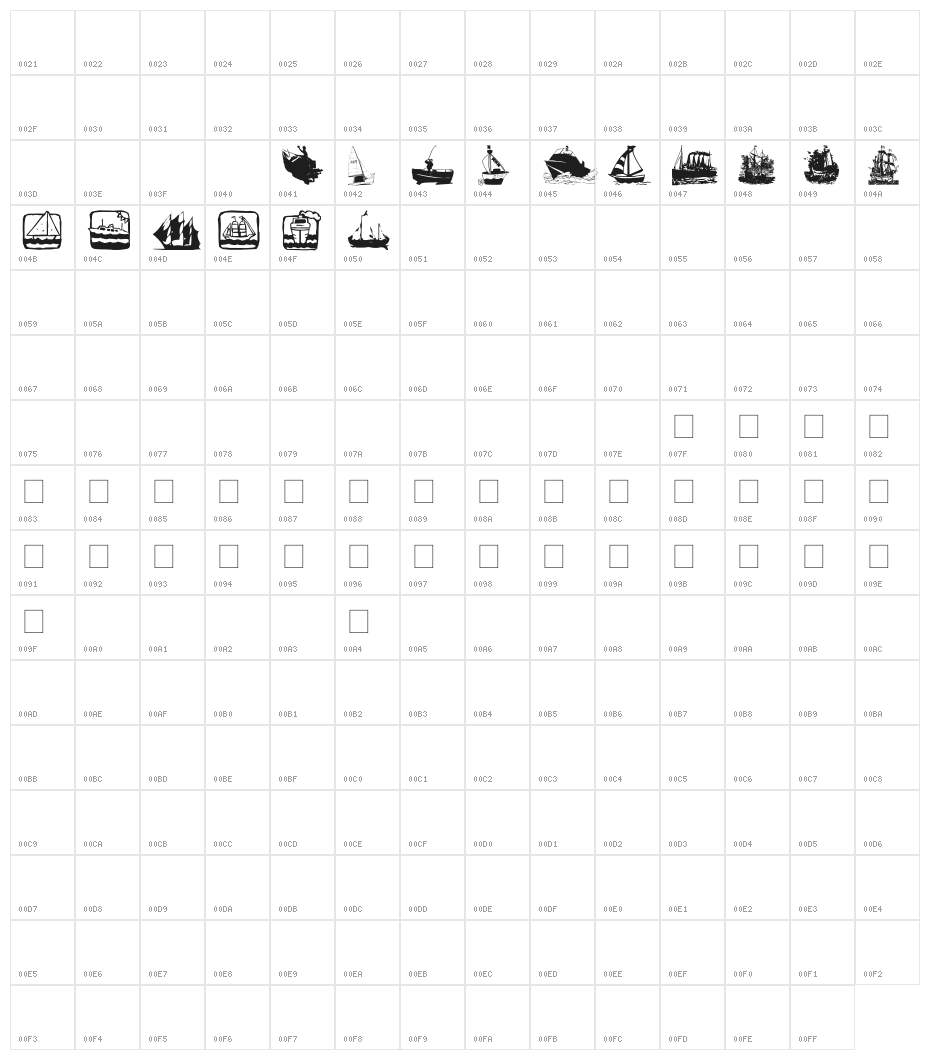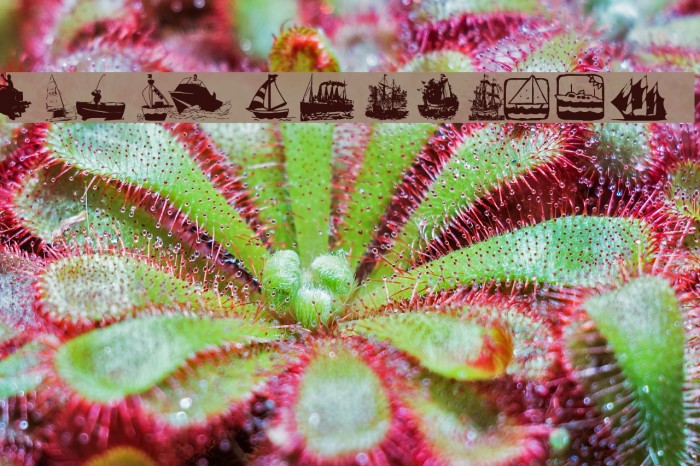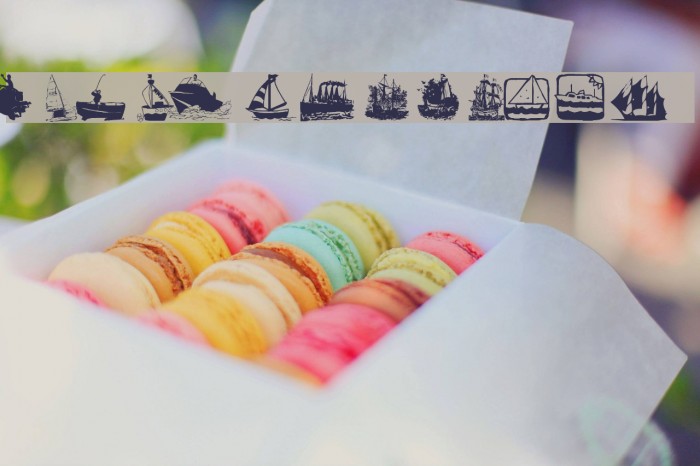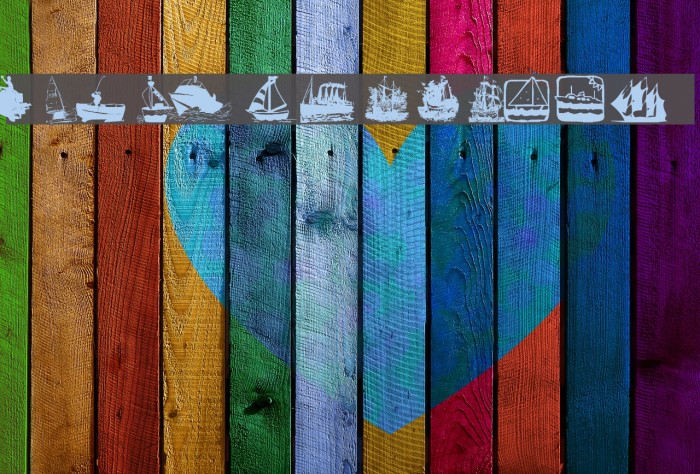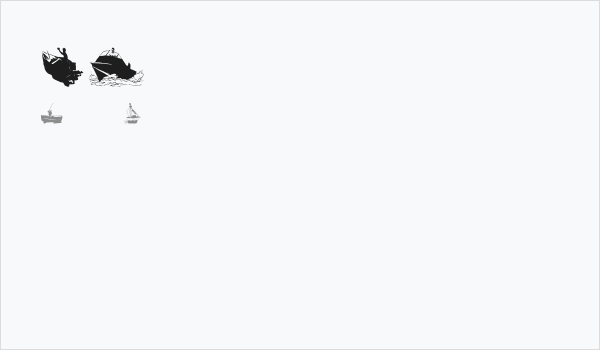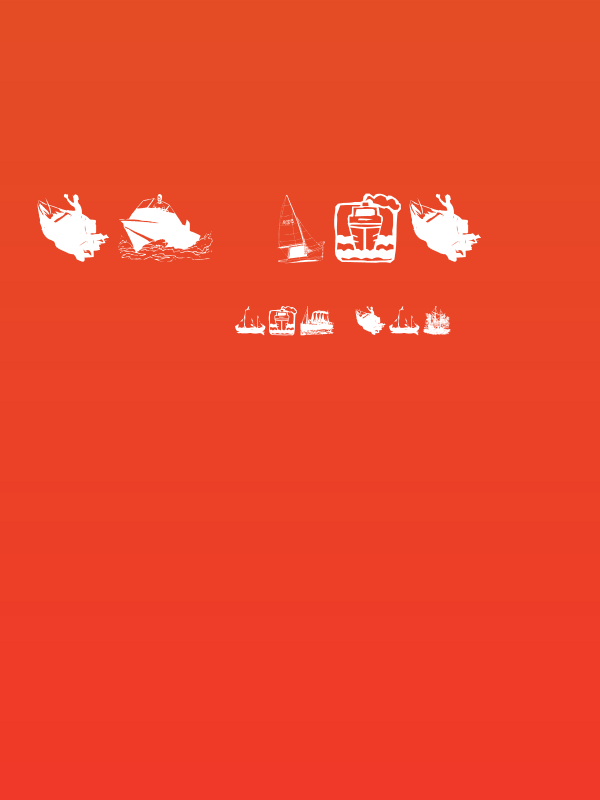
AEZ boats Font
AEZ boats Description
A decorative dingbat font featuring detailed black-and-white illustrations of various boats and ships, each glyph representing a different maritime vessel or nautical scene.
Overall StyleDecorative, Illustrative, Thematic
Use CaseIcons, Decorative elements, Themed graphics
Proposed ProjectsNautical-themed invitations, educational materials, scrapbooking, maritime branding, decorative borders.